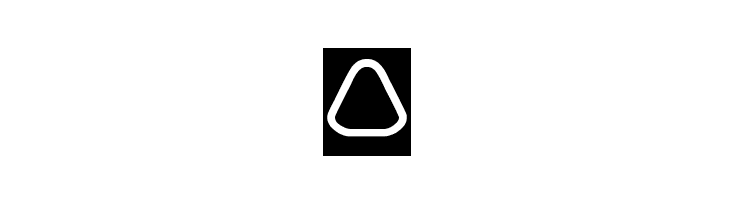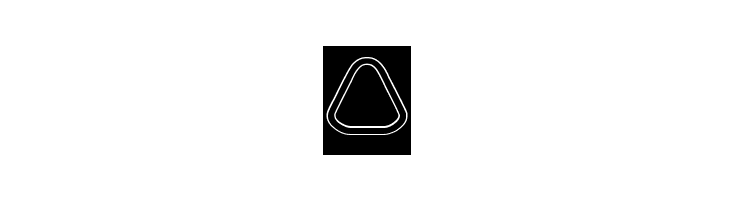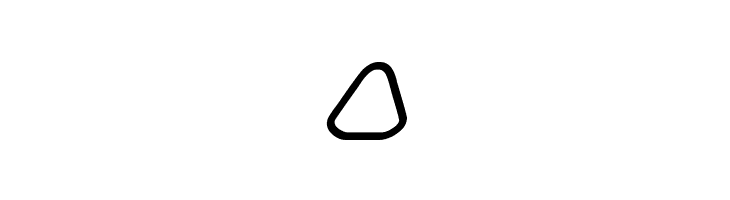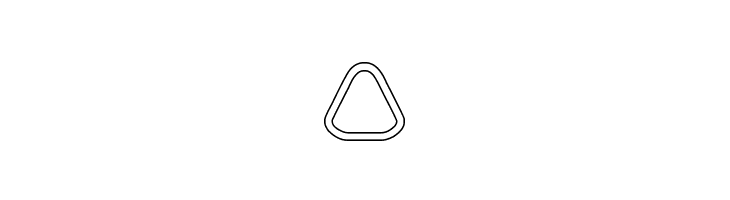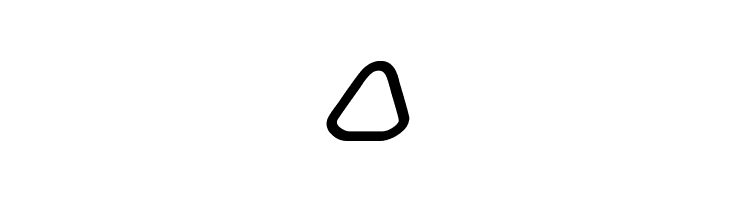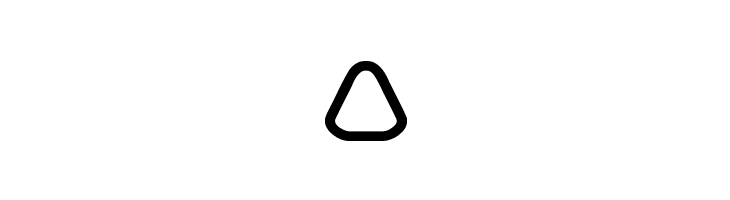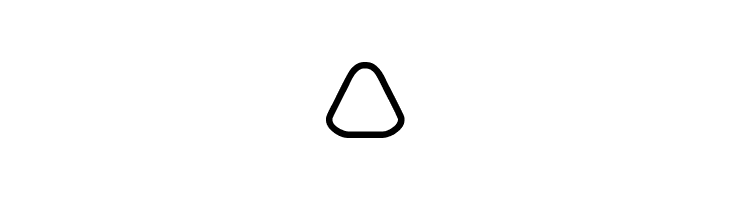
• Batullistiwa
A bold, playful script font with a handwritten style.
• BatuphatScript-Extrude
A bold, playful script font with a 3D extruded effect and whimsical style.
• BatuphatScript-Regular
A bold, flowing script font with smooth, connected strokes.
• BatzBatz
A decorative font with playful symbols and bold arrows.
• Bau Asem
A playful, rounded, and handwritten-style font with a friendly appearance.
• Bau Asem
A playful, rounded, and handwritten-style font with a friendly and informal appearance.
• BauAHaus-Black
A bold, geometric font with angular shapes and a modern, industrial style.
• Bauchaomaicha Regular
A bold, angular font with a futuristic and tech-inspired design.
• BaudotMurray
A dot matrix style font inspired by early telegraph systems, offering a retro digital look.
• Bauer PlAGuE dEaTH
A distressed, grunge-style font with a weathered, eroded appearance.
• BauerBear Attack
• BauhausFragments
An abstract, Bauhaus-inspired decorative font with geometric and artistic character designs.
• BauhausOSix
A decorative, geometric font with a pixelated, abstract design.
• BauhausReminisce
A bold, geometric, and abstract font with a modern artistic flair.
• BaumWell
A classic serif font with a modern touch, offering elegance and readability.
• Baung Asam Pedas DEMO
A bold, geometric font with a strong, blocky design.
• Bavalor
A bold, distressed font with a vintage, textured appearance.
• BAVARIA
A futuristic and geometric font with rounded edges and consistent line weight.
• BAVARIA Bold
A bold, geometric font with rounded edges and a futuristic style.
• BAVARIA Bold Italic
A bold, italic, and geometric font with a modern and futuristic style.
• BAVARIA Italic
A futuristic, italicized font with geometric and rounded characters.